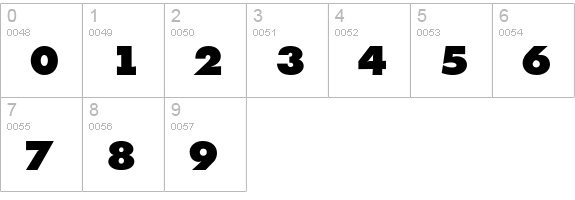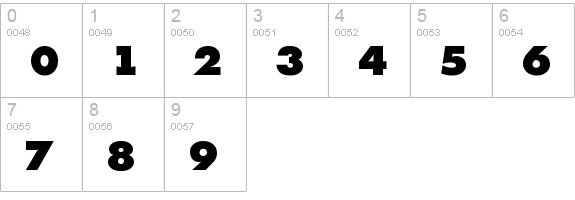
Isomar Display Expanded SSi Expanded Font Details
Isomar Display Expanded SSi Expanded is a distinctive, extended-width variant in the Isomar typeface family \xE2\x80\x94 well suited to design and typography projects.
Isomar Display Expanded SSi Expanded font is a visually striking and versatile typeface that will take your design projects to the next level. With its bold and exaggerated letterforms, this font commands attention and adds a touch of modernity to any text. The expanded design of Isomar Display gives it a unique and distinctive look, making it perfect for headlines, titles, and logos. Its wide letter spacing and larger proportions make it stand out and grab the viewer's attention, making your message impossible to ignore. This font's versatility is further enhanced by its clean and crisp lines, which ensure legibility even at smaller sizes. Whether used in print or digital media, Isomar Display Expanded SSi Expanded font will always deliver a powerful and professional impact. Best of all, Isomar Display Expanded SSi Expanded font is free to download at FontsMarket.com. This means that you can enjoy all its amazing features and benefits without any cost. Just head over to FontsMarket.com and get your hands on this incredible font today. With Isomar Display Expanded SSi Expanded font, you can unlock your creativity and create stunning designs that leave a lasting impression. So why wait? Download this exceptional font now and let your imagination run wild.